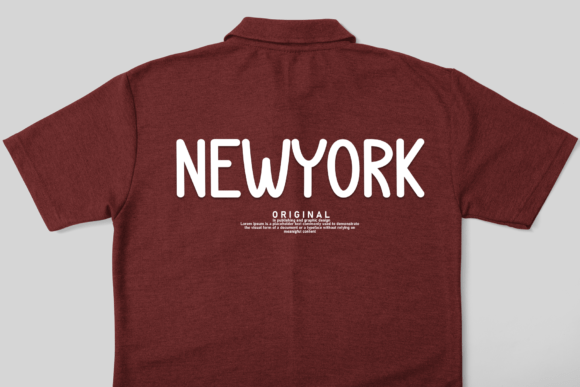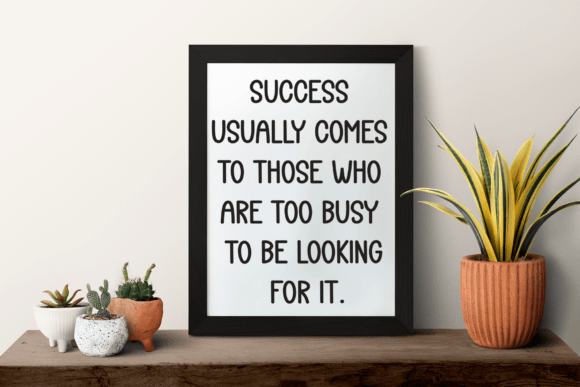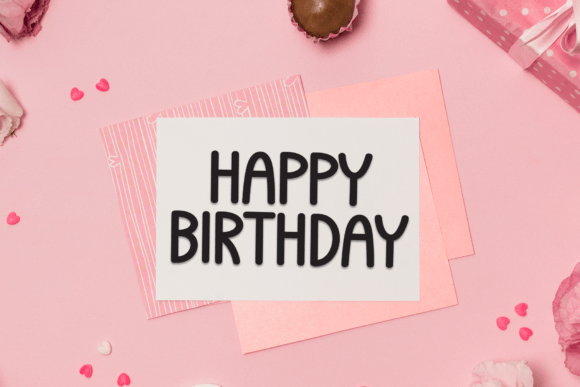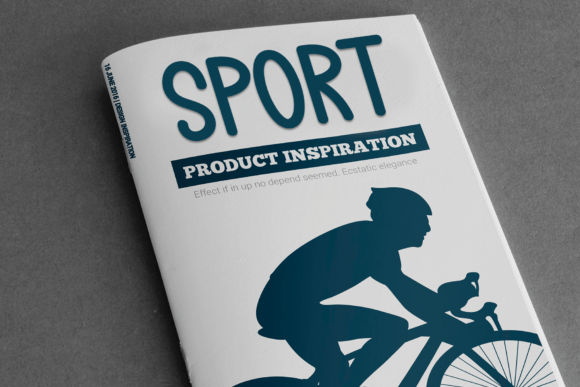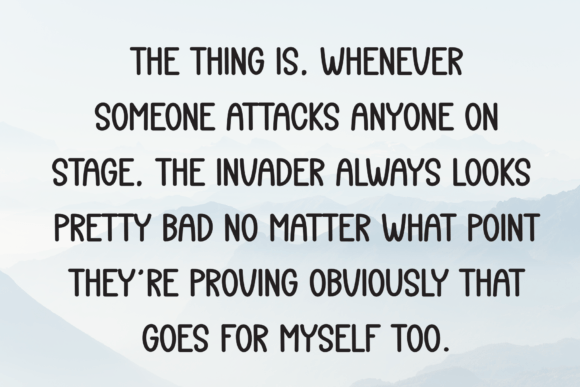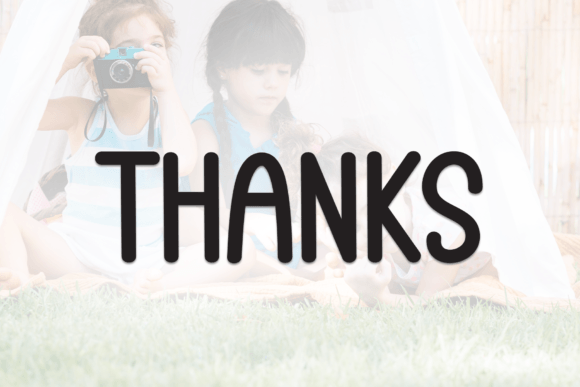
Discover the Sweet Charm of Baby Camping Font
As you sit by the campfire, watching the stars twinkle above, you can’t help but feel inspired by the great outdoors. The crackling flames, the rustling leaves, and the sound of nature’s symphony all combine to spark your creativity. And that’s exactly when the magic happens – you start brainstorming ideas for your next design project.
Whether you’re a seasoned designer or just starting out, the right font can make all the difference in bringing your vision to life. That’s where the Baby Camping Font comes in – a sweet and friendly handwritten font that’s perfect for adding a touch of whimsy to your designs. With its natural and unique style, the Baby Camping Font is incredibly versatile, making it a valuable addition to any designer’s toolkit.
Baby Camping Font Key Features
- Size: 256 glyphs, including uppercase and lowercase letters, numbers, punctuation, and special characters
- Unique Characteristics: Whimsical, child-friendly design with bold lines and playful shapes, perfect for children’s books, nursery decor, and other family-oriented projects
- Font Weight: Available in regular and bold weights, allowing for flexibility in design and layout
Baby Camping Font Review
At first glance, Baby Camping Font looks like a playful and quirky addition to any design project. ✨ The font’s irregular, hand-drawn style gives off a whimsical vibe that’s perfect for outdoor-themed designs or kids’ products. ✨ The font comes with a decent number of characters, including uppercase and lowercase letters, numbers, and some punctuation marks.
- Playful, hand-drawn style suitable for outdoor or kids’ designs
- Decent number of characters, including uppercase and lowercase letters, numbers, and some punctuation marks
- Can be used for a variety of design projects, from logos to packaging
However, there are some limitations to consider. ⚠️ The font’s irregular style can make it difficult to read, especially at smaller font sizes. ⚠️ The font also lacks a consistent design language, with some characters looking more rough-hewn than others.
Overall, Baby Camping Font is a fun and creative addition to any design project, but it may not be suitable for all types of designs. I’d recommend using it for projects where a playful, hand-drawn style is a good fit, but be aware of its limitations when it comes to readability and consistency.
Tips for Getting the Most Out of “Baby Camping Font”
For a more authentic look, use the font in conjunction with outdoor-themed graphics and colors. Experiment with different font sizes and styles to add visual interest to your design. Consider pairing the font with a bold, sans-serif font for a striking contrast.
“Baby Camping Font” is perfect for outdoor-themed designs, such as camping invitations, outdoor apparel, and nature-inspired graphics. It’s also great for adding a playful touch to children’s designs, such as birthday invitations and nursery decor.